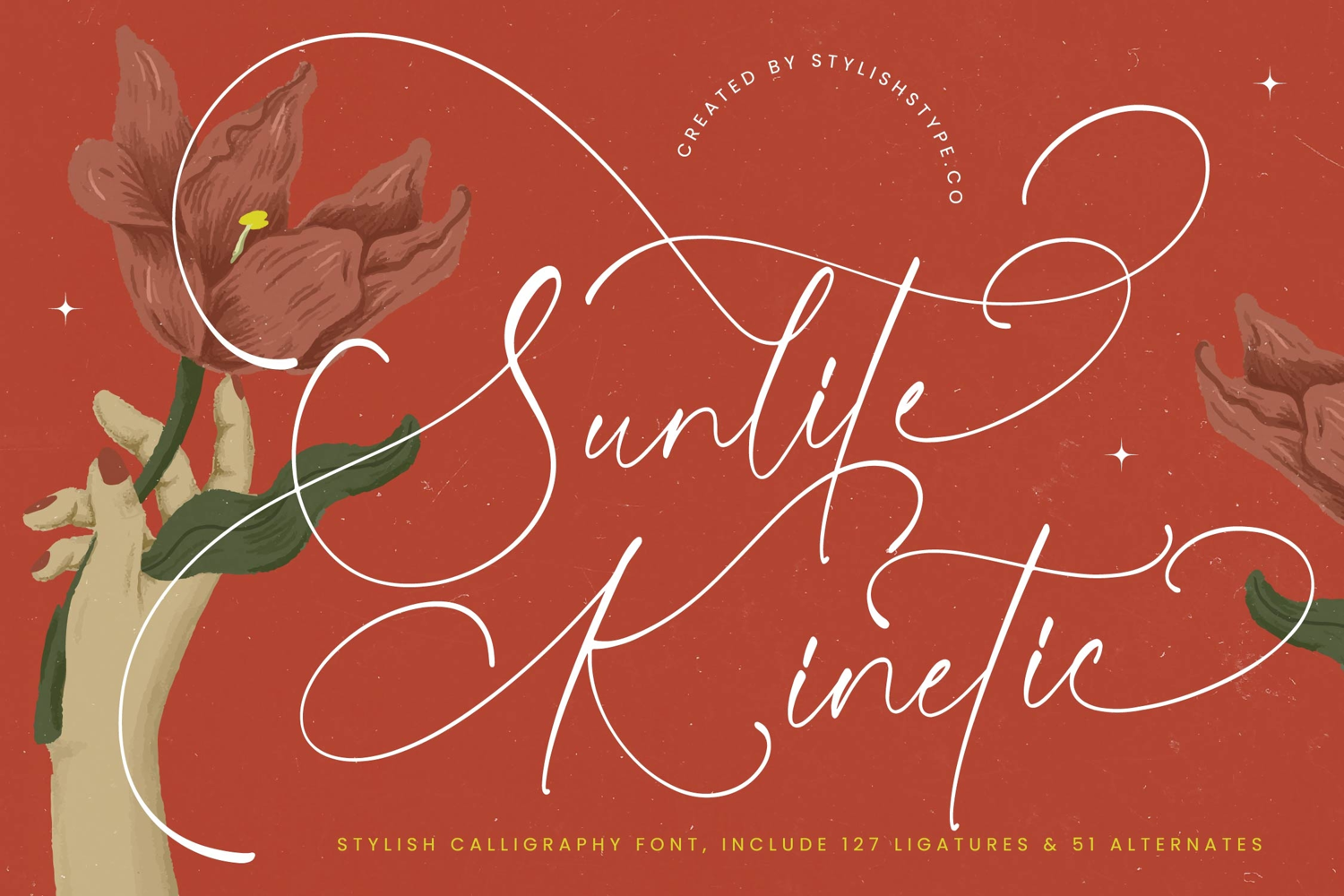
Sunlite Kinetic - Stylish Calligraphy Font
Sunlite Kinetic is a stylish calligraphy font that combines luxurious elegance with refined handwritten beauty. Its flowing curves, expressive ligatures, and delicate swashes make it a perfect choice for projects that demand sophistication and artistry. With 127 ligatures and 51 alternates, Sunlife Kinetic offers designers the creative versatility to craft unique and graceful lettering compositions.
This typeface excels in branding. Perfect for logos, boutique shops, fashion houses, luxury products, and monograms, Sunlite Kinetic conveys exclusivity and refinement. Its calligraphic style ensures that branding projects look elegant, memorable, and premium, giving brands a timeless identity.
In editorial and publishing, Sunlite Kinetic adds class and creativity. Magazines, book covers, lifestyle articles, and wedding programs benefit from its ornamental strokes and elegant rhythm. It creates editorial layouts that balance readability with artistic detail, turning text into a visual centerpiece.
For web typography, this stylish calligraphy font adapts beautifully across blogs, websites, portfolios, and social media posts. Its handwritten elegance ensures that digital media projects feel authentic, luxurious, and creative, helping brands and creators stand out online.
Sunlite Kinetic also shines in advertising and marketing. From posters, product campaigns, promotional materials, and business cards, it captures attention with elegance and charm. It ensures that advertising communicates sophistication while remaining artistic, appealing to premium markets.
This font is particularly well-suited for wedding and event stationery. Its graceful swashes and alternates elevate invitations, greeting cards, signage, and decorative stationery into works of art. It’s perfect for wedding branding, romantic occasions, and elegant celebrations.